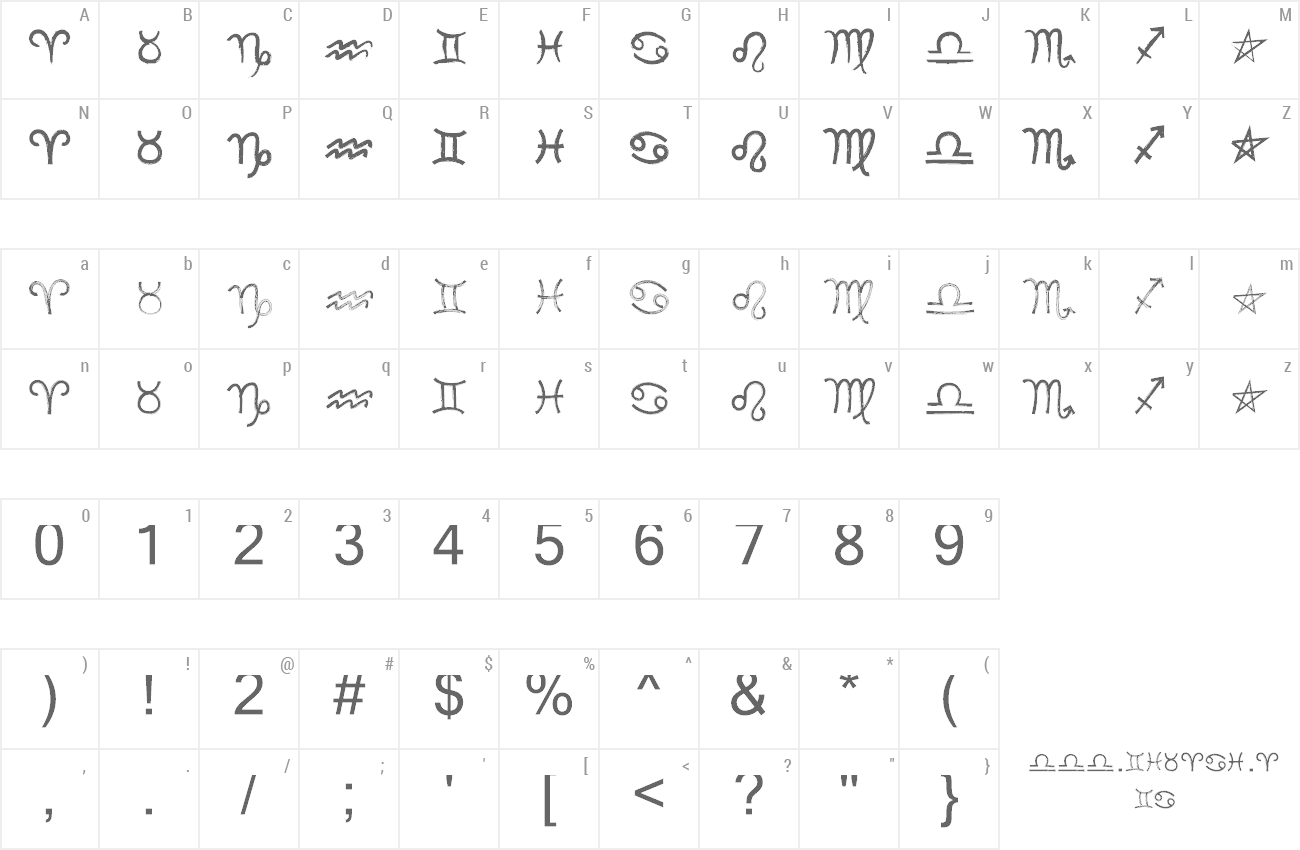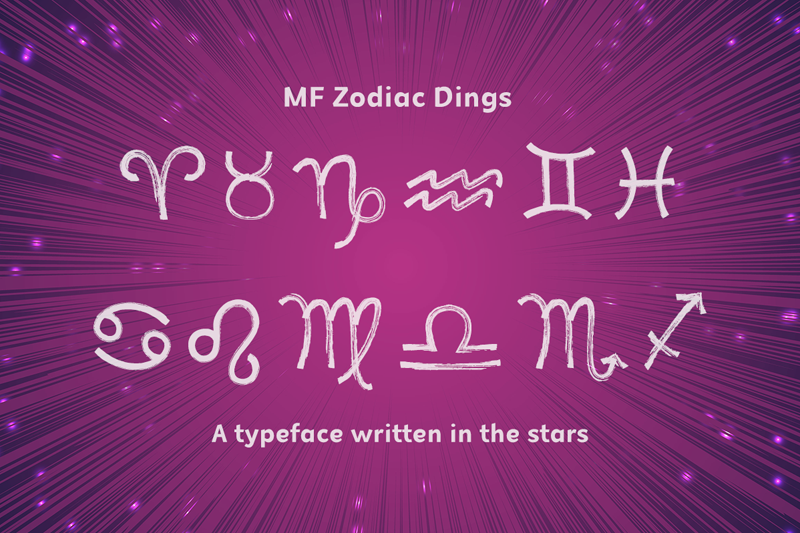
| Font name: | MF Zodiac Dings |
| Categories | Dingbats, Esoteric |
| Author: | Misti's Fonts |
MF Zodiac Dings is a fun dingbats font with 4 hand-drawn versions of the 12 astrological signs. Perfect for astrology websites, books, and products. Create awesome zodiac-themed sublimation projects with ease! Terms Of Use and Commercial Licensing: https://mistifonts.com/mf-zodiac-dings/ |